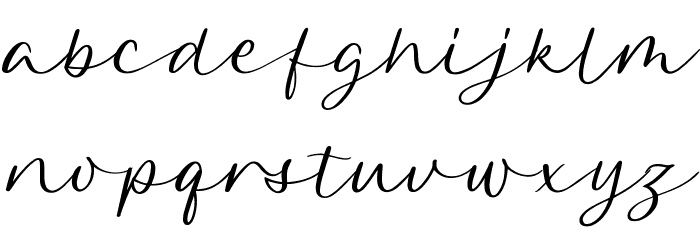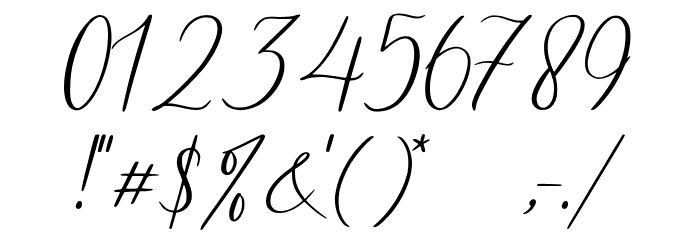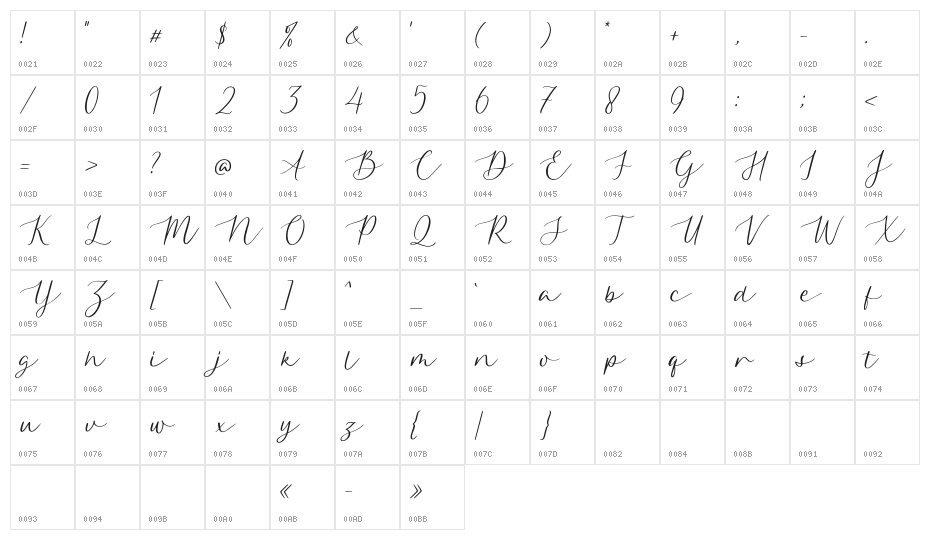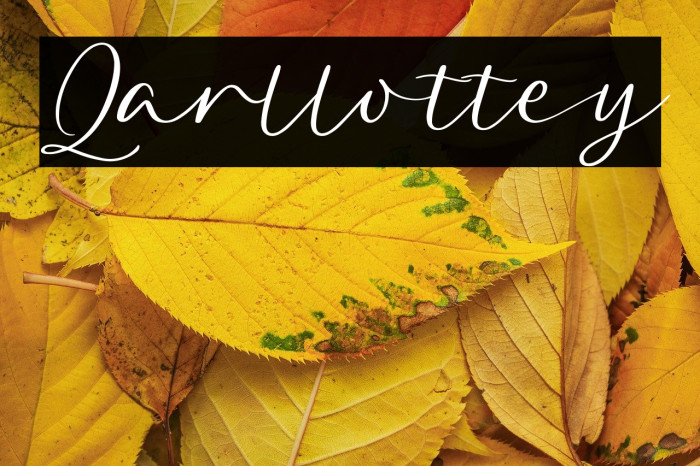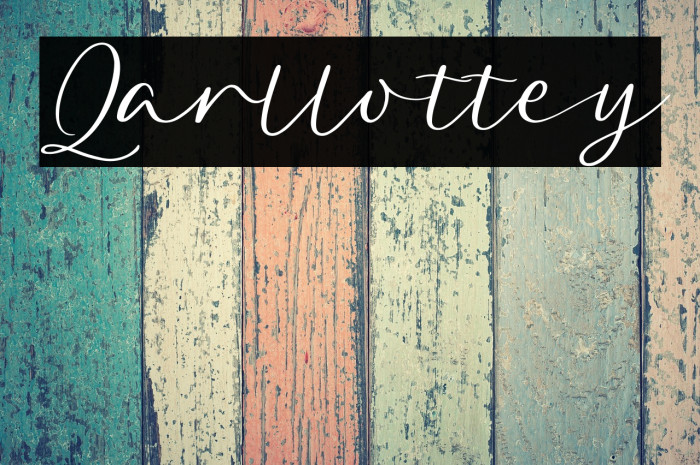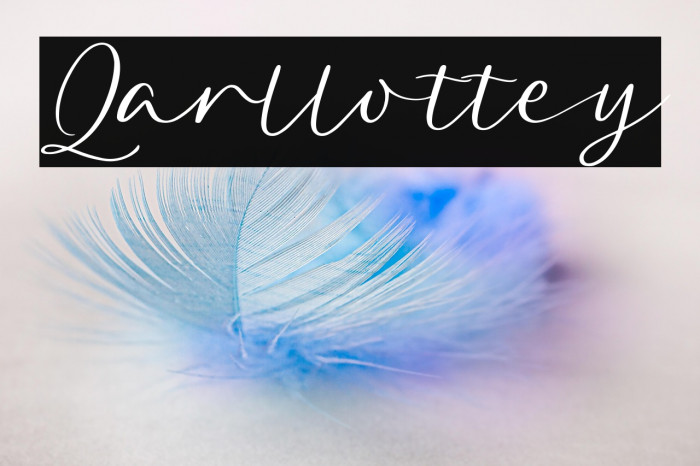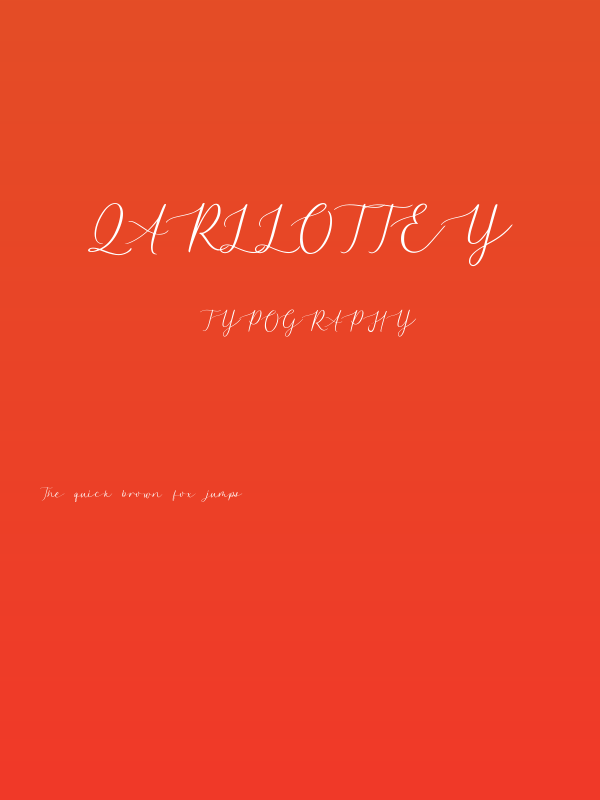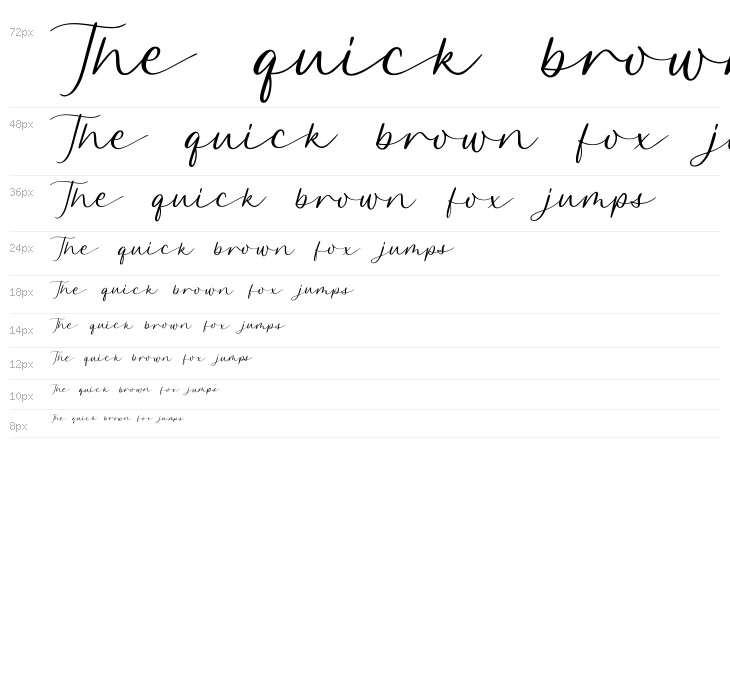
Qarllottey Font
This elegant script font features a flowing, cursive style with smooth, connected strokes that emulate the fluidity of handwriting. The uppercase letters are characterized by their graceful loops and swirls, while the lowercase letters maintain a consistent, flowing form. The numerals are designed with a similar flair, adding a touch of sophistication. Special characters are seamlessly integrated, enhancing the font's versatility. The overall design exudes a sense of elegance and refinement, making it suitable for a variety of creative applications.
A graceful and elegant script font with flowing, connected strokes.
- Proposed Projects: Ideal for wedding invitations, greeting cards, branding, and elegant stationery.
- Overall Style: Elegant
- Use Case: Logos, Invitations, Decorative text